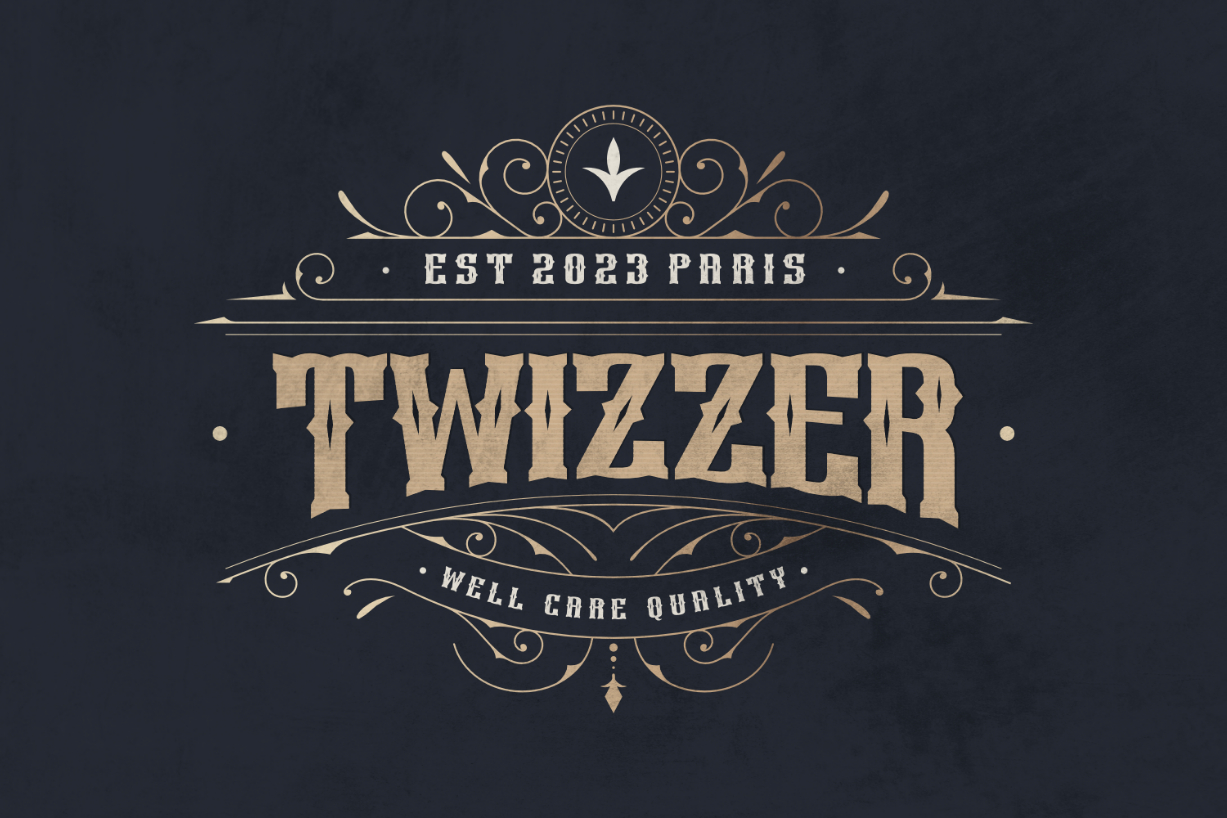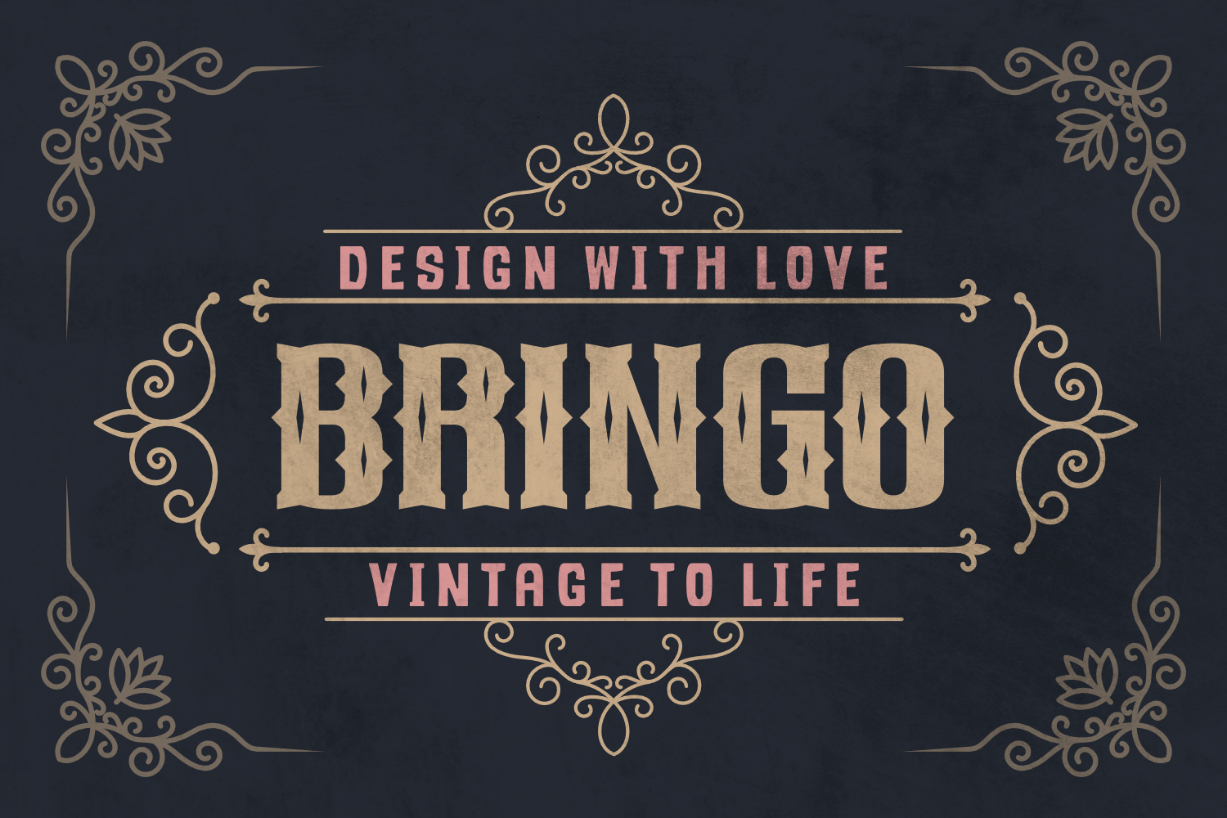
Hibro Font
About Hibro Font
Hibro is a thick, old-fashioned blackletter font. Add a touch of elegance and style to your typography designs with this striking typeface! You can use it to create remarkable posters, advertisements, signage, t-shirts, and more.